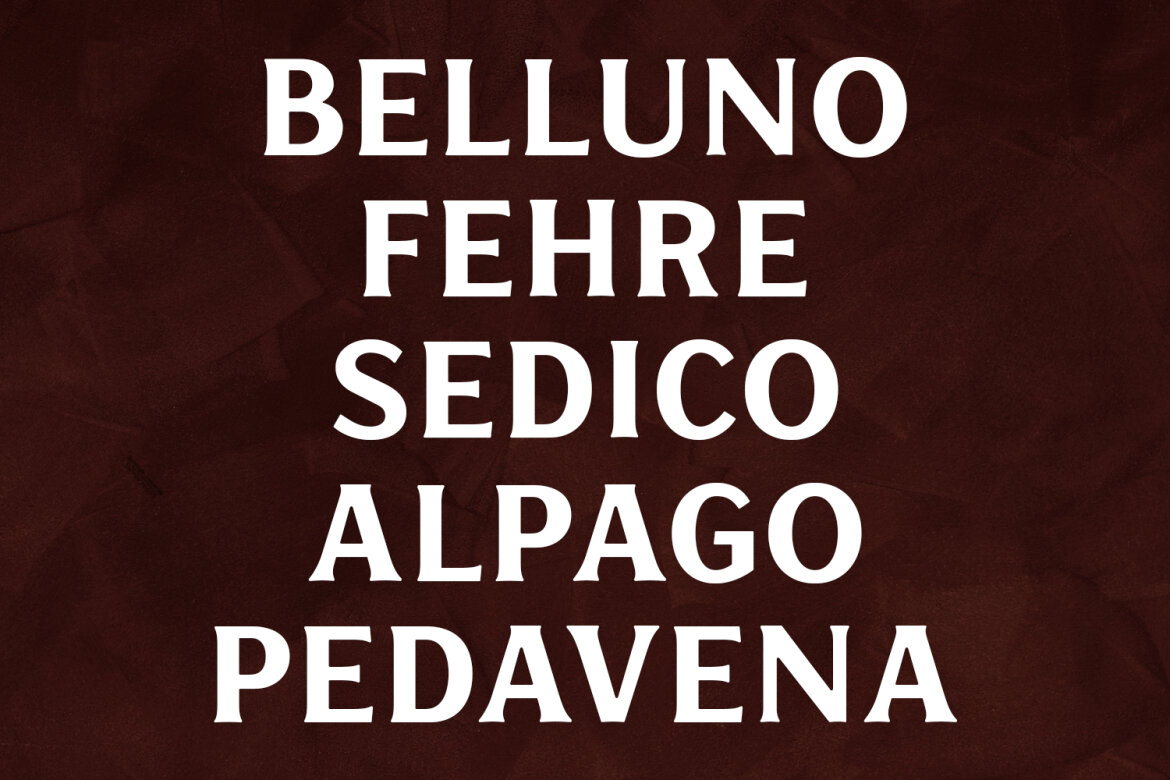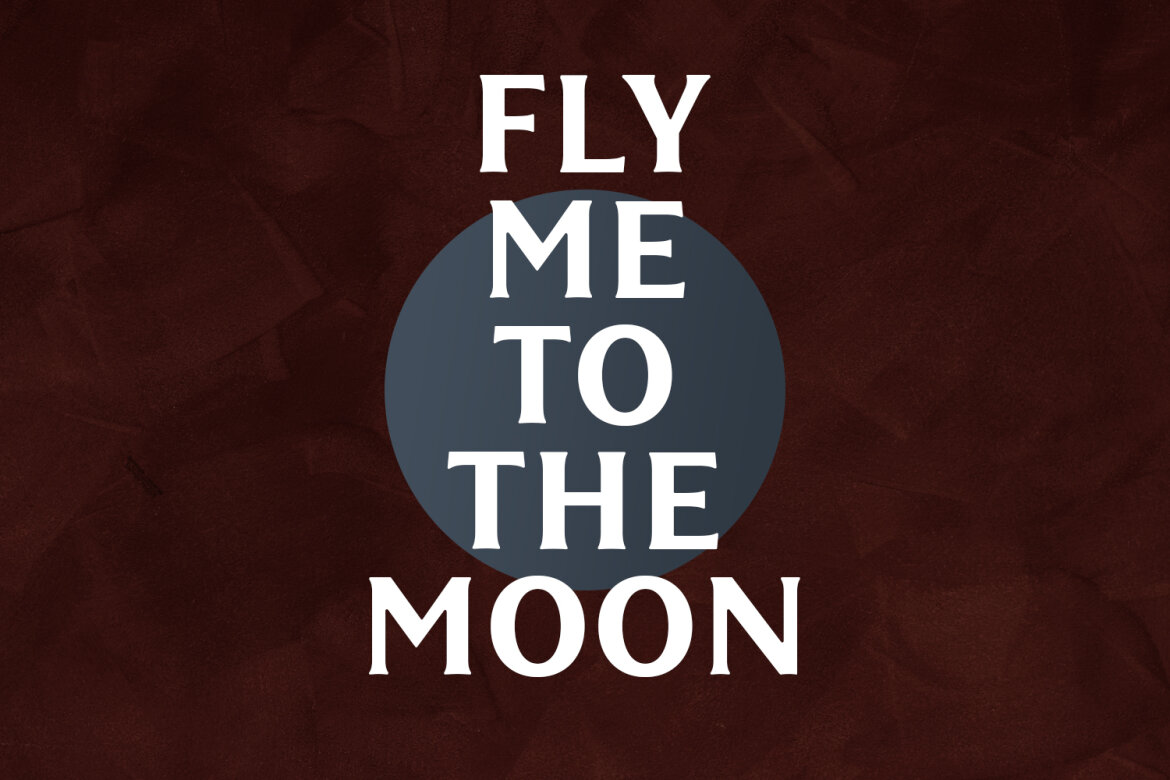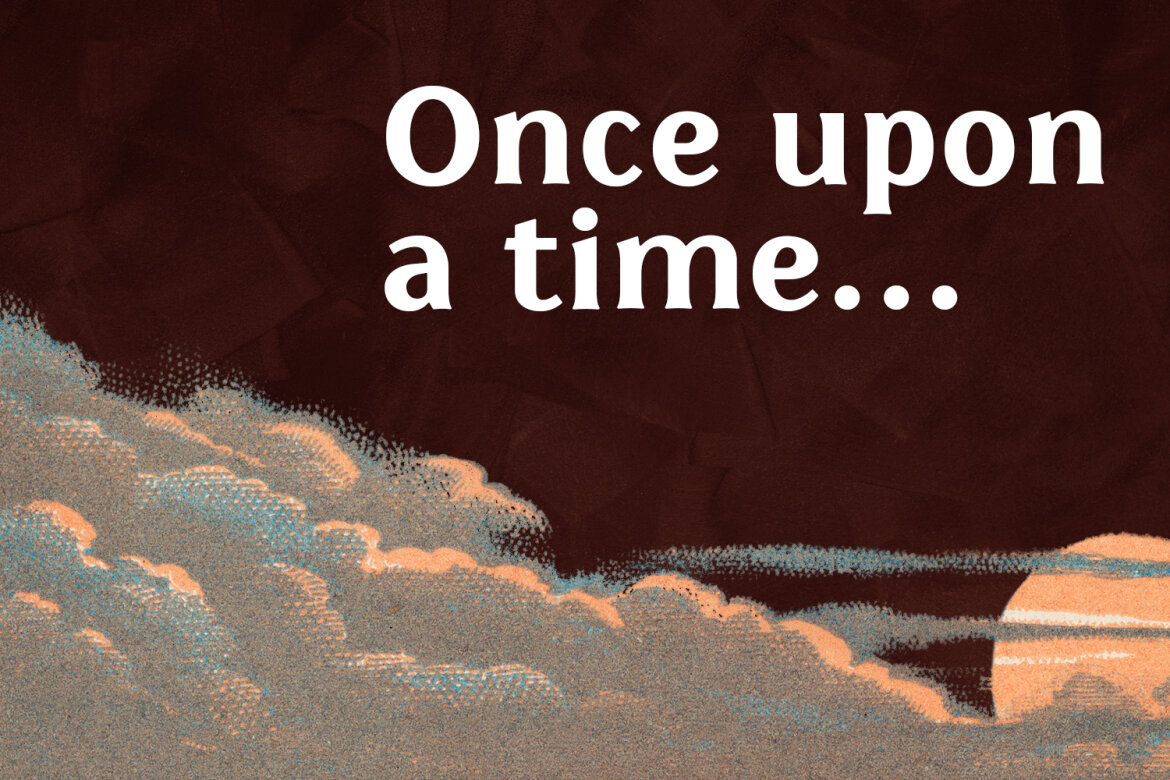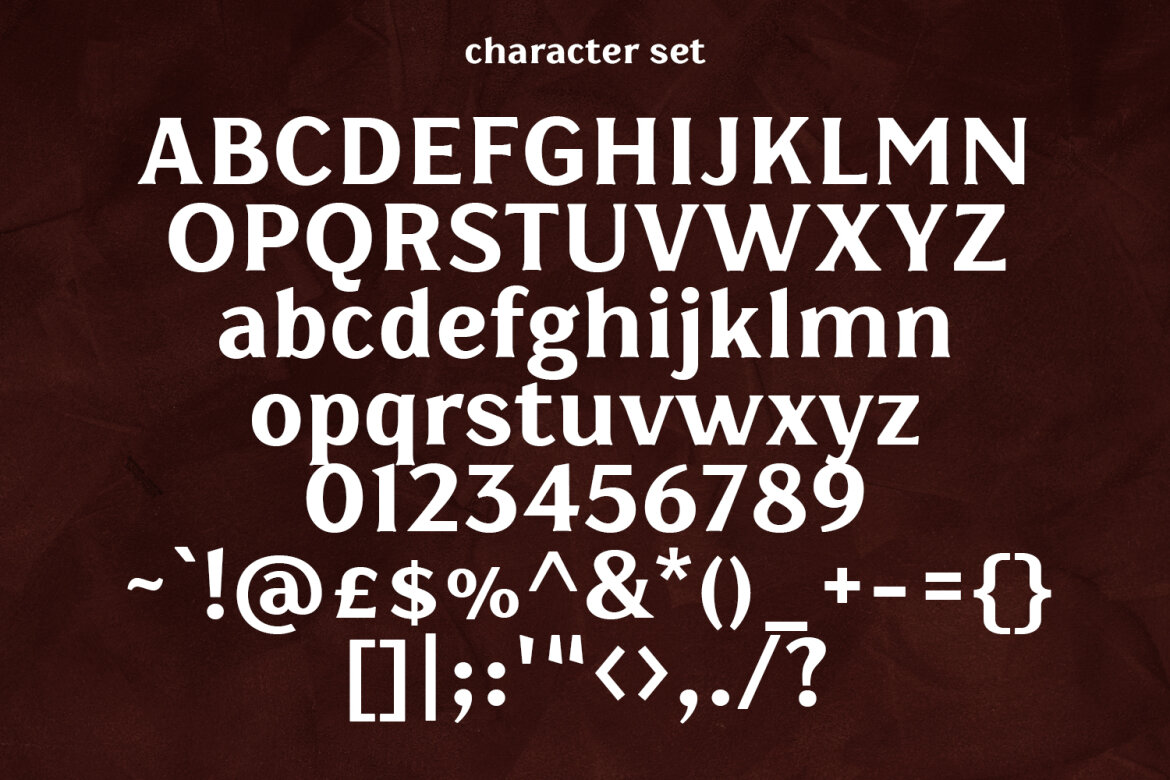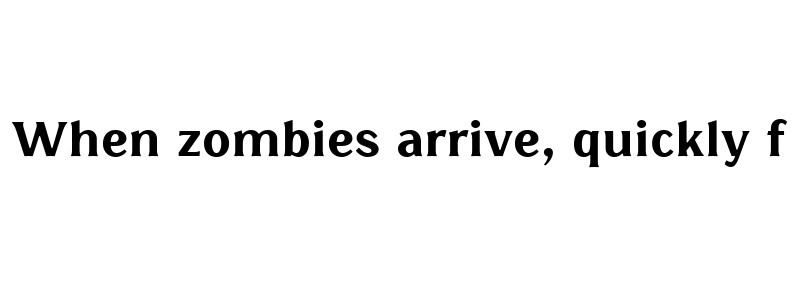
Falige Serif FREE Font
Falige preview
Falige
Falige is a modern display serif font. With medium low contrast stroke, fun character with a bit of ligatures and alternates. To give you an extra creative work. Falige font support multilingual more than 100+ language. This font is good for logo design, Social media, Movie Titles, Books Titles, a short text even a long text letter and good for your secondary text font with script or serif. Make a stunning work with Falige font.